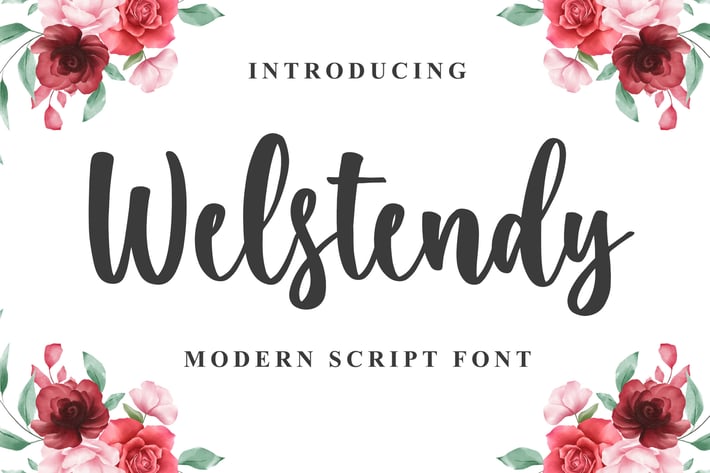
Welstendy - Modern Calligraphy Font
Introducing of our new product the name is Welstendy Modern Calligraphy Font. Welstendy inspired by modern calligraphy style this font is a fun theme very good for display, wedding, valentine theme, logotype and etc